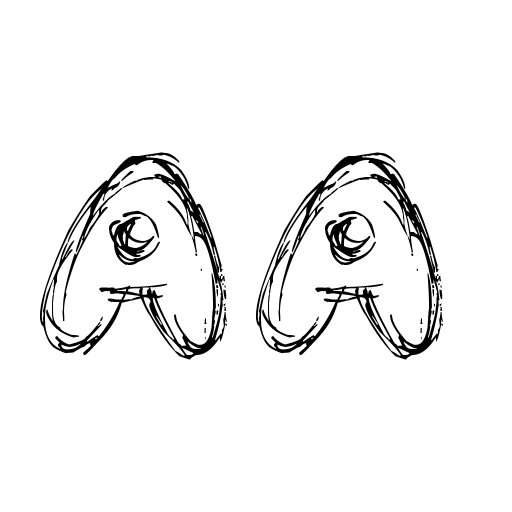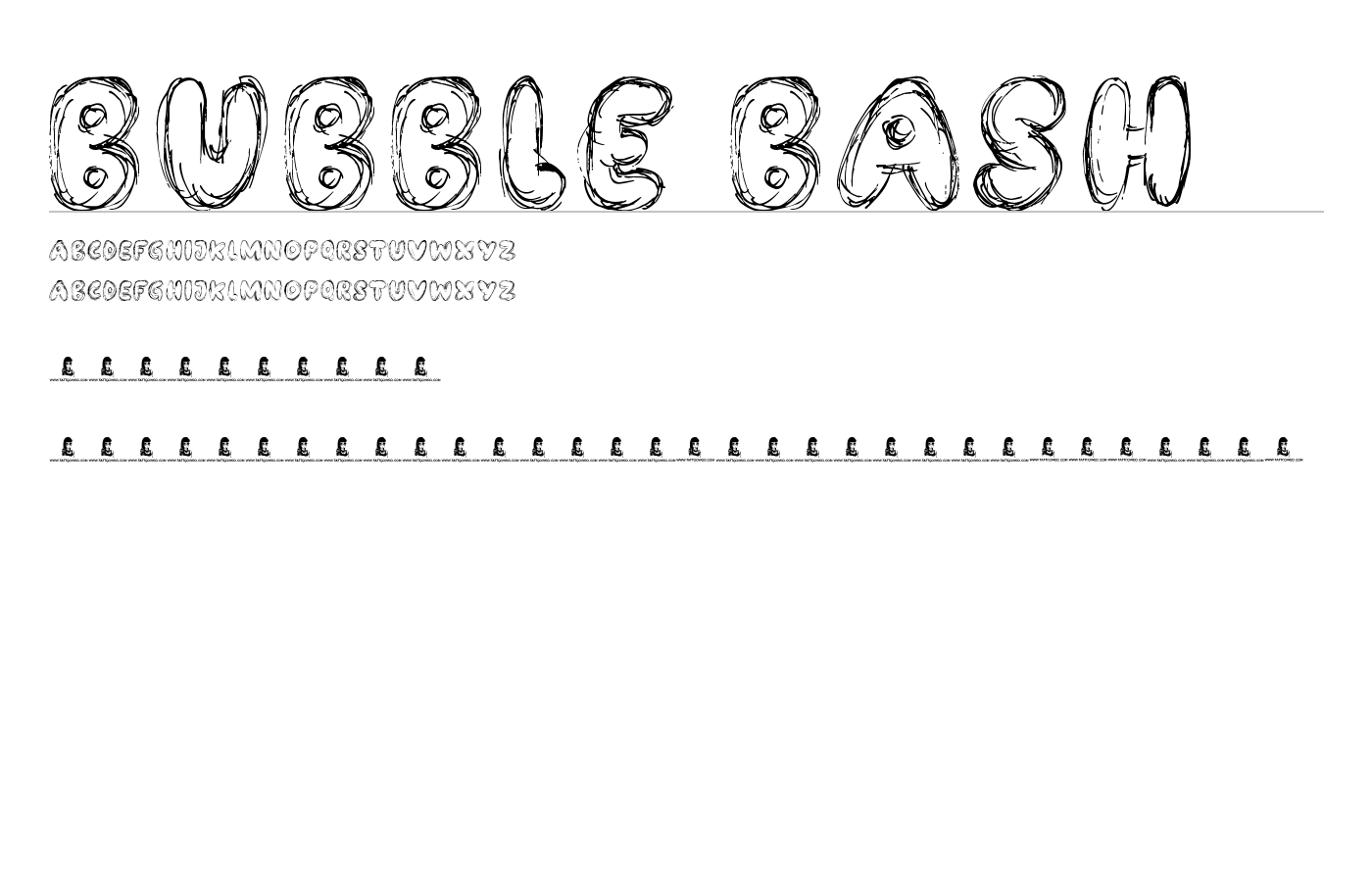
Bubble Bash is a playful and whimsical handwritten font featuring bold, rounded letterforms with a textured, sketch-like outline that gives it a fun and energetic feel. Its bubbly, casual style makes it perfect for children’s products, party invitations, or creative branding that wants to convey lightheartedness and spontaneity. This font works best in headlines and display settings where its lively personality can shine.
Bubble Bash Font
About Bubble Bash Font